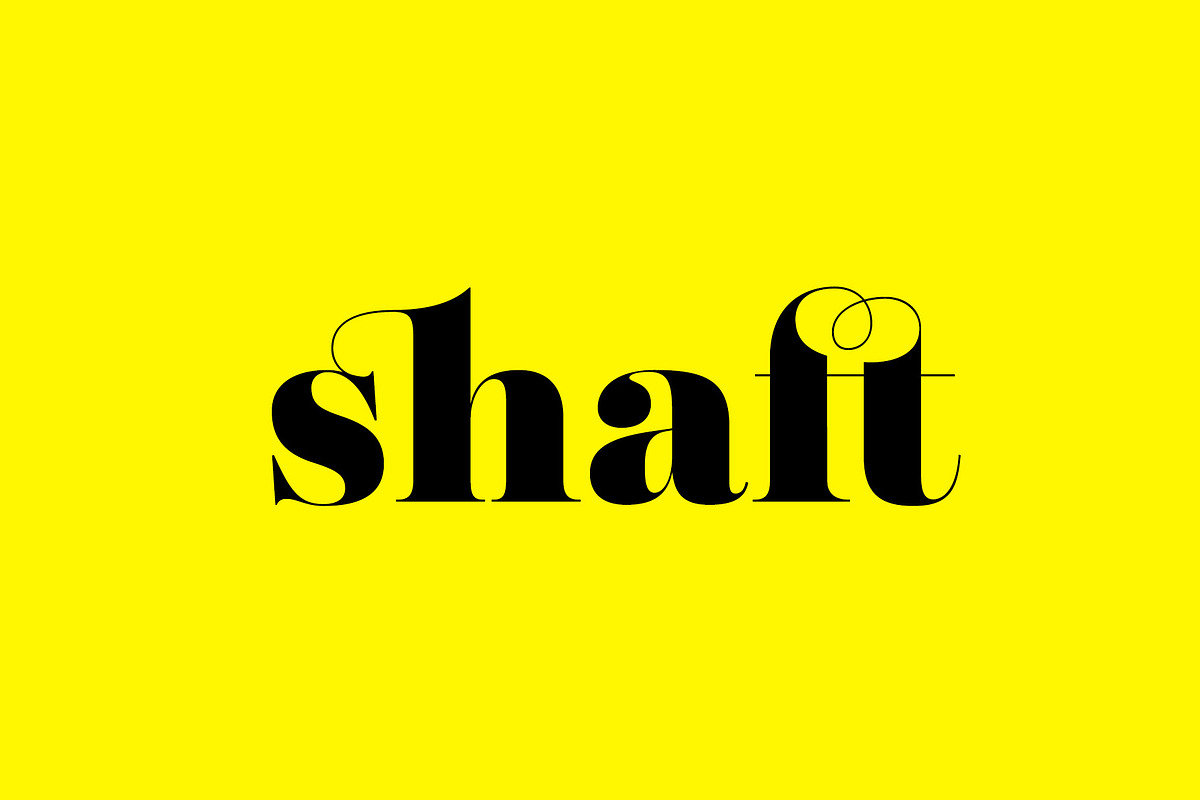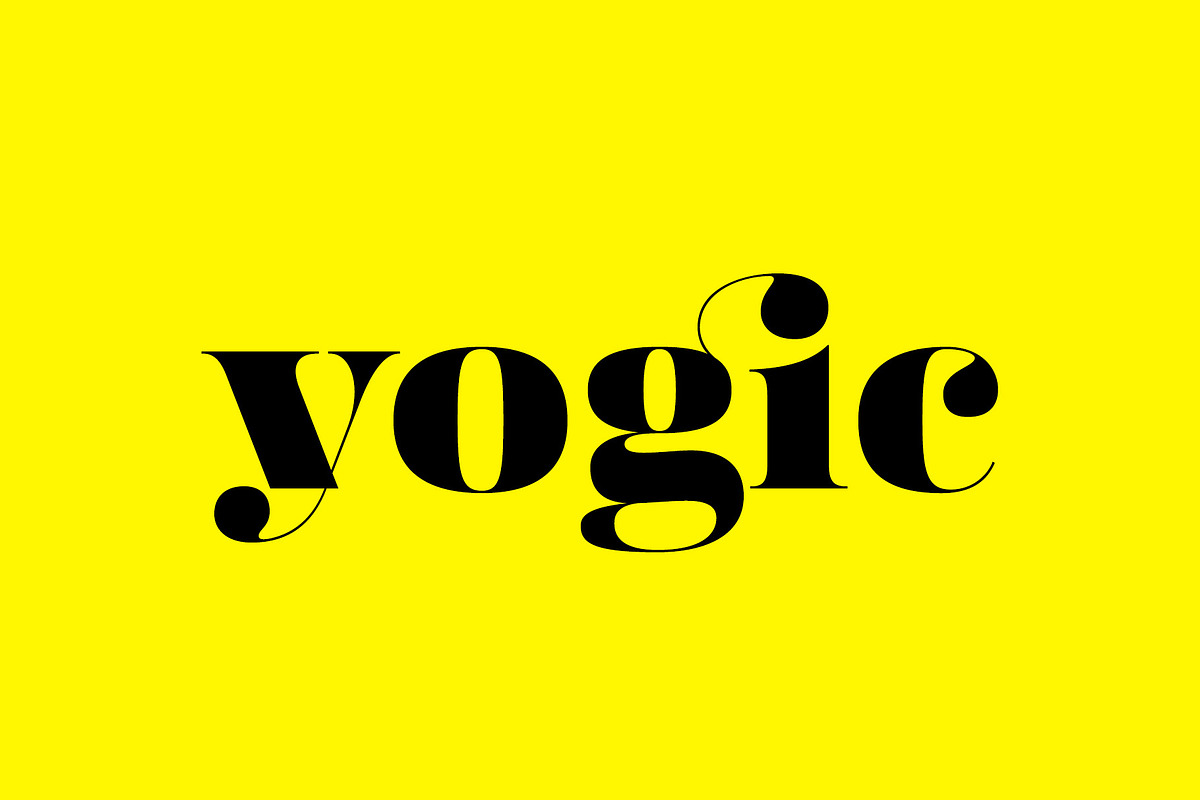
Fabrica - Decorative Serif
Fábrica is an exquisite display letter with flair. Its delicate curves have been carefully honed; yet its beauty is seemingly effortless. To add to its appeal, Fábrica is equipped with several handy features such as ligatures (there are plenty of them), old style figures and fractions. Its true crown jewel, however, is the finely tuned hairline accents – no longer will a diacritical mark ruin your heading. Find those under a feature called Thin accents.
Use Fábrica to turn your communication into statements of divine elegance.